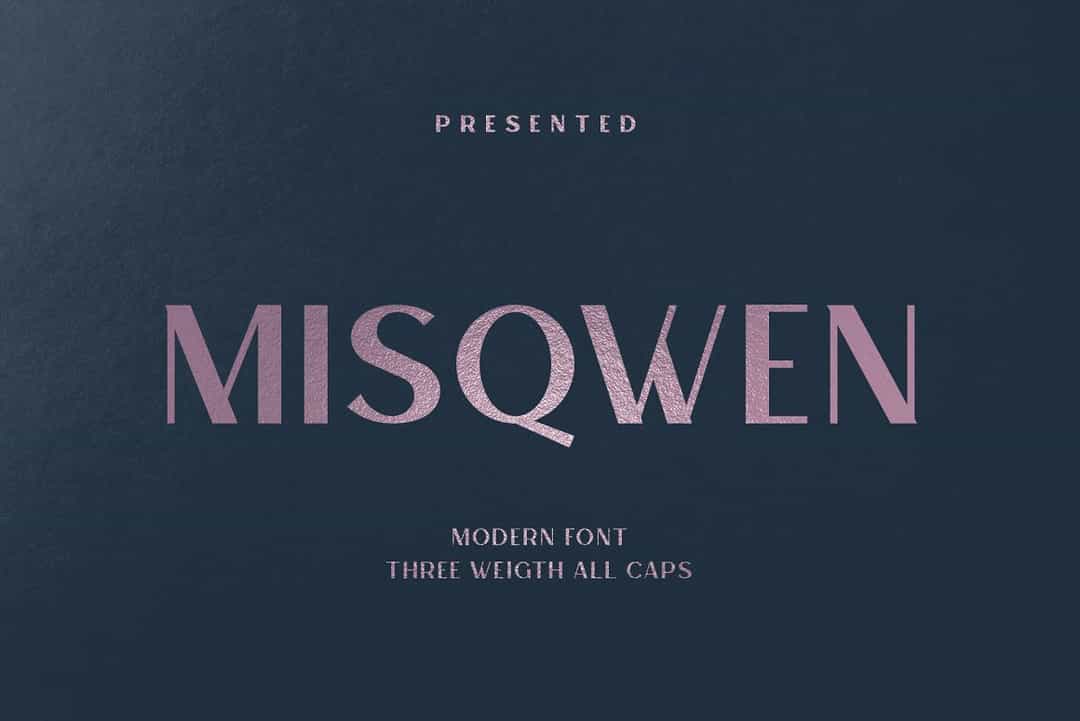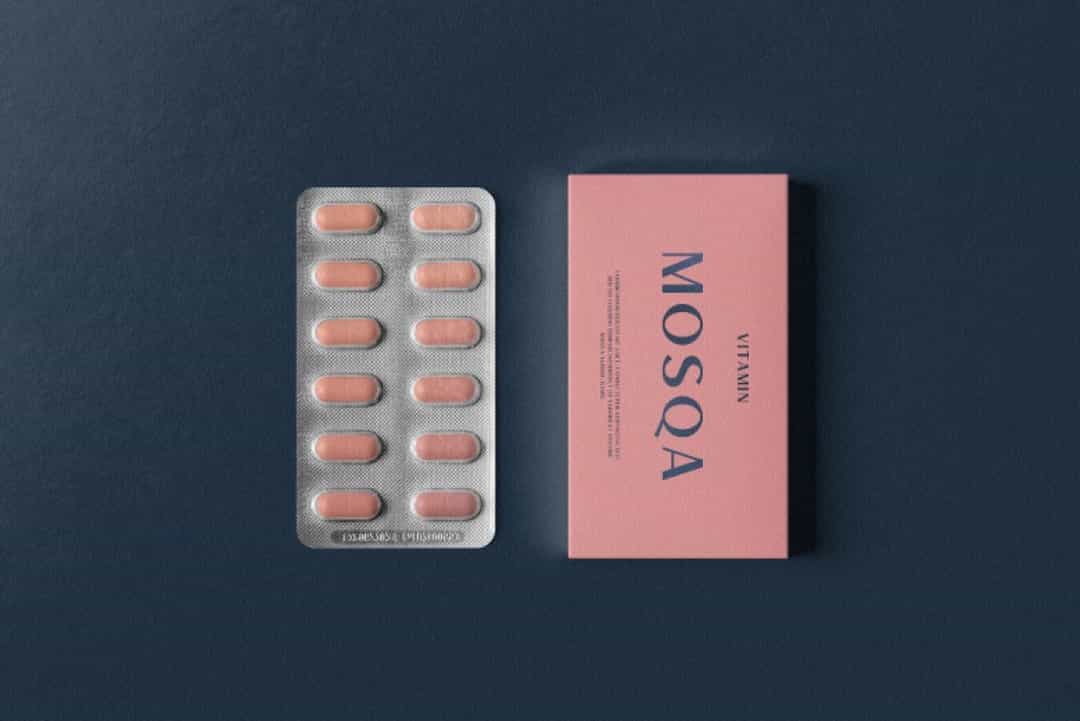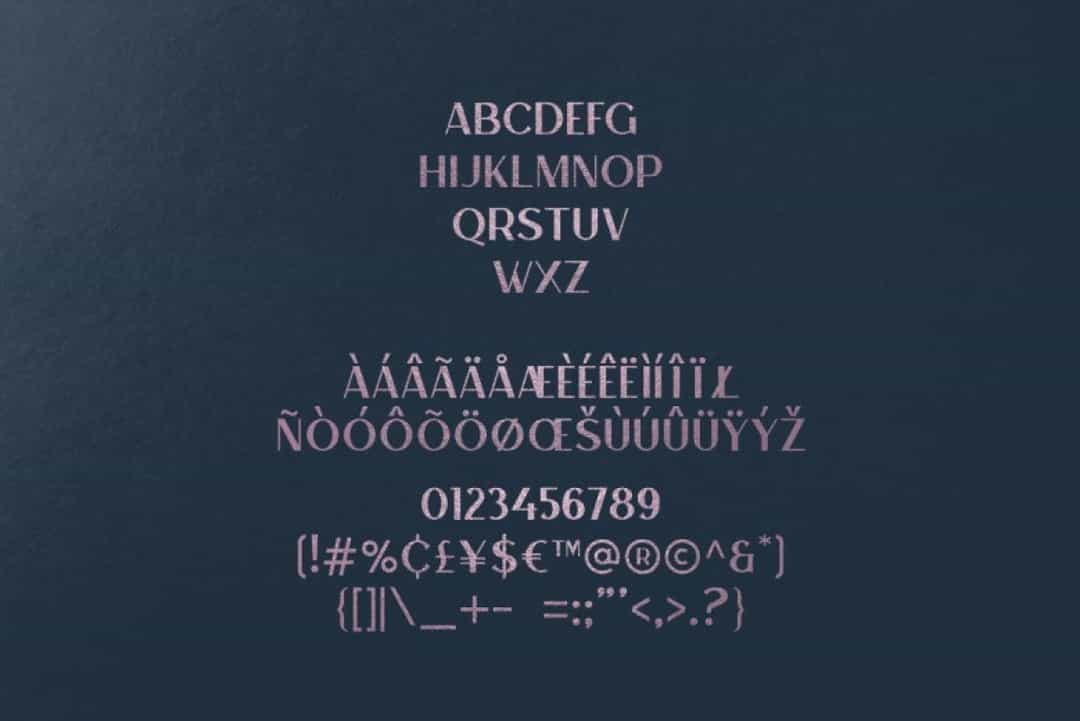
MISQWEN Font is a modern sans serif typeface , It can easily be matched to an incredibly large set of projects, so add it to your creative ideas and notice how it makes them stand out! This bundle features strong, confident and powerful typefaces designed to work great with sports logos, club branding, apparel applications, labels and more.